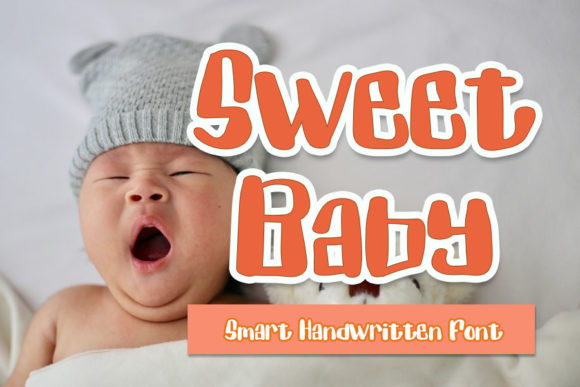
Unleash Your Creativity with Sweet Baby Font: The Playful Display Font That Will Make Your Designs Sing
In a world saturated with mundane fonts, Sweet Baby Font emerges as a breath of fresh air, a playful display font brimming with charm and character. Its natural and unique style defies convention, inviting you to embark on a creative journey where your imagination knows no bounds.
With Sweet Baby Font, you hold the key to unlocking a vast universe of design possibilities. Whether you're crafting modern resumes, eye-catching logos, or whimsical social media posts, this font will elevate your creations to new heights. Its versatility knows no limits, seamlessly adapting to a myriad of projects, from personal to professional.
Picture this: a modern resume that dances off the page, captivating the attention of potential employers with its playful yet polished charm. Or envision a logo that radiates personality, leaving an unforgettable impression on your audience. With Sweet Baby Font, these aspirations become reality, empowering you to create designs that resonate with your individuality and leave a lasting impact.
But Sweet Baby Font isn't just about aesthetics; it's about evoking emotions and forging connections. Its playful nature invites viewers to engage with your designs, creating a sense of warmth and familiarity. Whether you're crafting invitations for a special occasion or designing marketing materials that demand attention, this font will infuse your creations with a touch of magic, leaving a lasting impression that lingers long after the page is turned.
So, embrace the playful spirit of Sweet Baby Font and embark on a creative adventure like no other. Let your imagination run wild as you explore the endless possibilities this font presents. From modern resumes that command attention to social media posts that ignite engagement, Sweet Baby Font is your creative companion, ready to transform your designs into masterpieces.